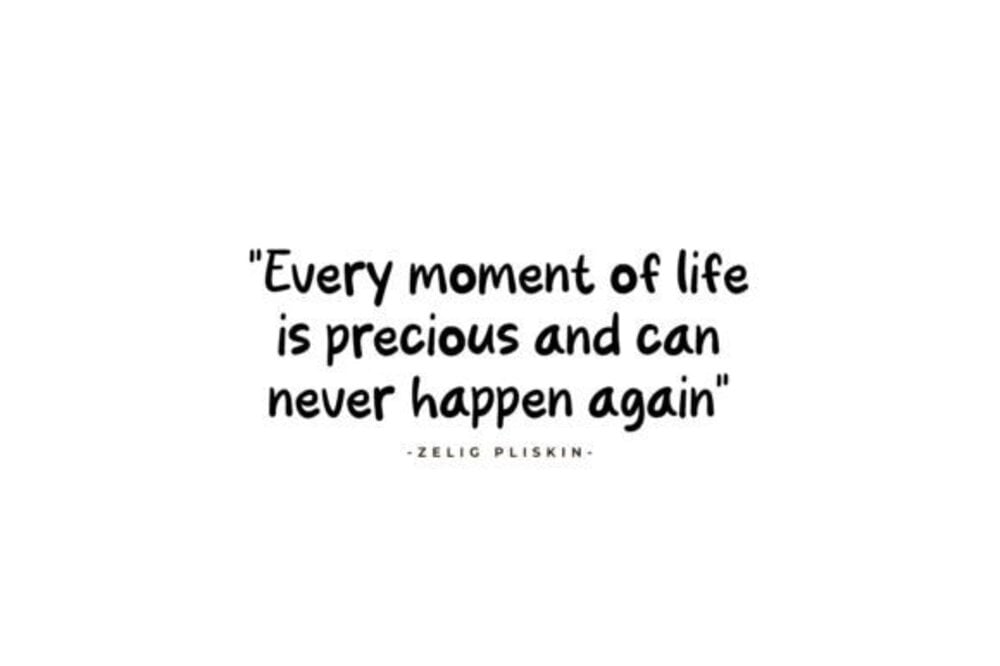
Snack Box Font
Snack Box is a playful and quirky display font with a fun, hand-drawn aesthetic. Its chunky, slightly irregular letterforms evoke a sense of childhood nostalgia and playful indulgence. Perfect for food packaging, children’s designs, party invitations, and anything that needs a touch of lighthearted whimsy. Snack Box adds a deliciously fun and memorable touch.